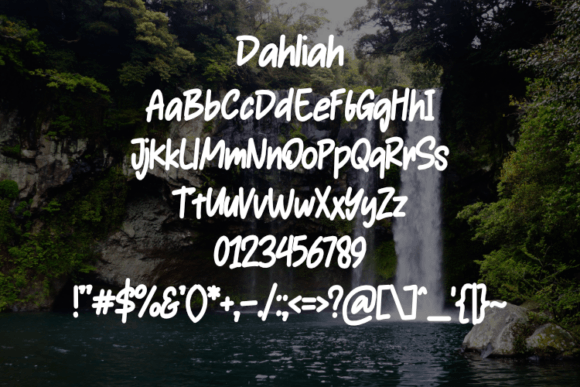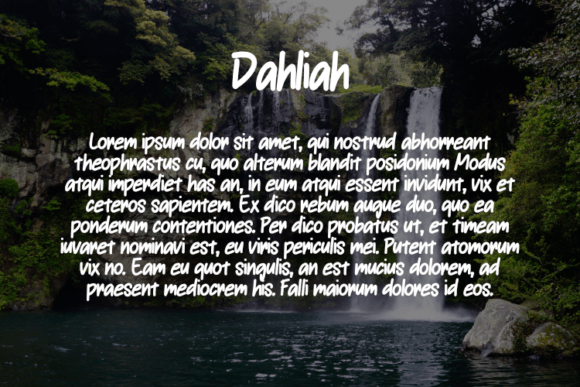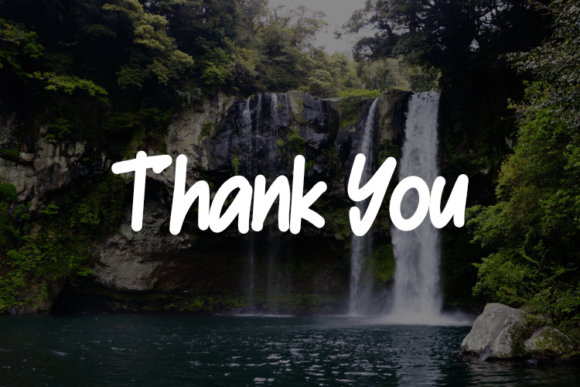
Unleash Your Creativity with Dahliah Font: The Ultimate Design Companion
Are you a designer, crafter, or DIY enthusiast looking for a font that can elevate your creative projects? Look no further than Dahliah, a vibrant and versatile font that’s perfect for making a statement. In this article, we’ll explore the unique features of Dahliah and how it can breathe life into your designs, from clothing and accessories to home decor and beyond.
The Versatility of Dahliah
Dahliah is more than just a font – it’s a design experience. With its bold and eye-catching style, it’s ideal for creating striking visuals that capture attention. Whether you’re designing t-shirts, mugs, phone cases, or any other product, Dahliah is the perfect companion. Its versatility knows no bounds, and it’s suitable for a wide range of aesthetics, from modern and edgy to vintage and whimsical.
Breathe Life into Your Designs
Dahliah is more than just a font – it’s a creative catalyst. With its unique and stylish aesthetic, it can add a touch of personality to any design. Whether you’re creating a logo, branding materials, or social media graphics, Dahliah can help you stand out from the crowd. Its bold and vibrant style is perfect for making a statement, and its versatility ensures that it can be used in a wide range of contexts.
With Dahliah, the design possibilities are endless. Here are just a few ideas to get you started:
- Design custom t-shirts, hoodies, and other clothing items with bold and eye-catching graphics.
- Create stunning home decor products, such as wall art, tote bags, and phone cases.
- Develop unique branding materials, including logos, business cards, and brochures.
- Make a statement with custom signage, banners, and posters.
Why Choose Dahliah?
So why choose Dahliah over other fonts? Here are just a few reasons:
- Unique style: Dahliah has a distinctive and stylish aesthetic that’s unlike any other font.
- Versatility: Dahliah is suitable for a wide range of designs, from modern and edgy to vintage and whimsical.
- Creative liberation: Dahliah offers the creative freedom to experiment with different designs and ideas, without technical limitations.